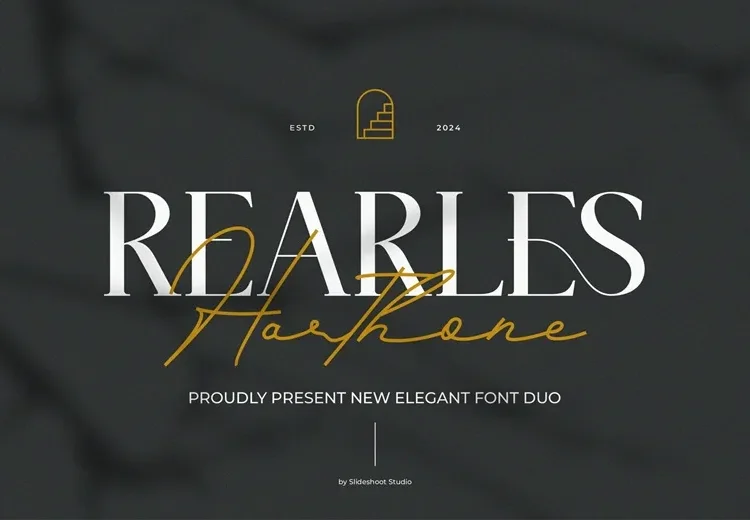
Rearles Harthone Font
Rearles Harthone is a sophisticated font duo that combines the charm of modern serif letters with the fluidity of stylish script. This elegant pairing is designed to elevate your projects with its trendy yet timeless appeal.
Perfect for titles, logos, branding, magazines, product packaging, and invitations, Rearles Harthone brings a harmonious balance of sleek curves and classic design. Its contemporary aesthetic makes it ideal for adding a polished and refined touch to any creative endeavor. Whether you’re crafting luxurious brand identities or elegant invitations, this font duo is a perfect match.